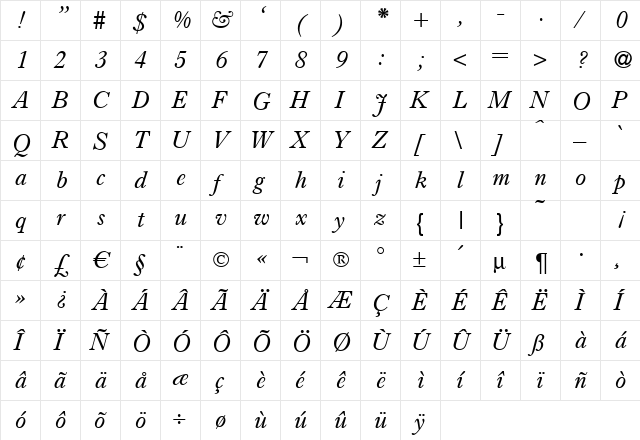
I771-Roman Italic
Design Context for I771-Roman Typeface
I771-Roman takes a measured approach to typography — its balanced proportions and neutral character make it a reliable workhorse for both digital and print work. Its italic angle brings a sense of urgency and motion to the letterforms.